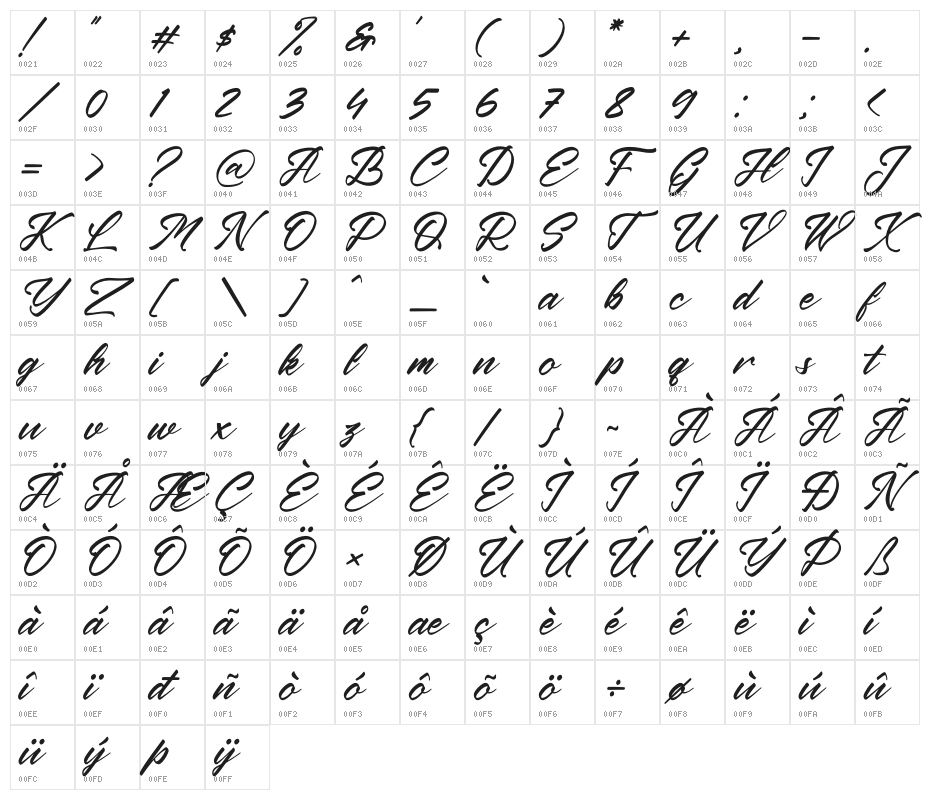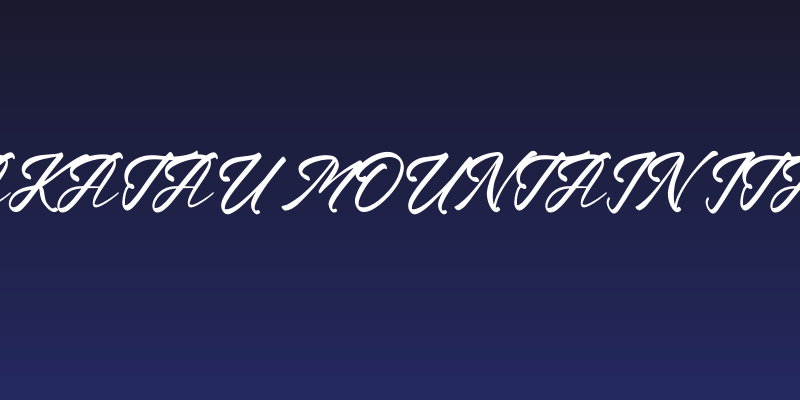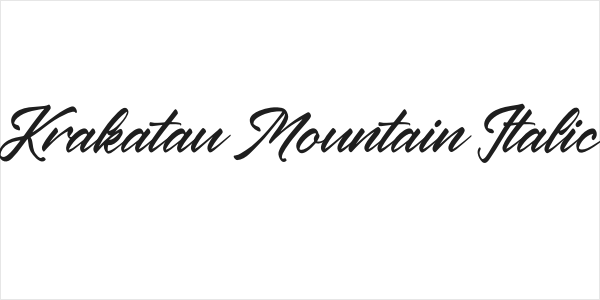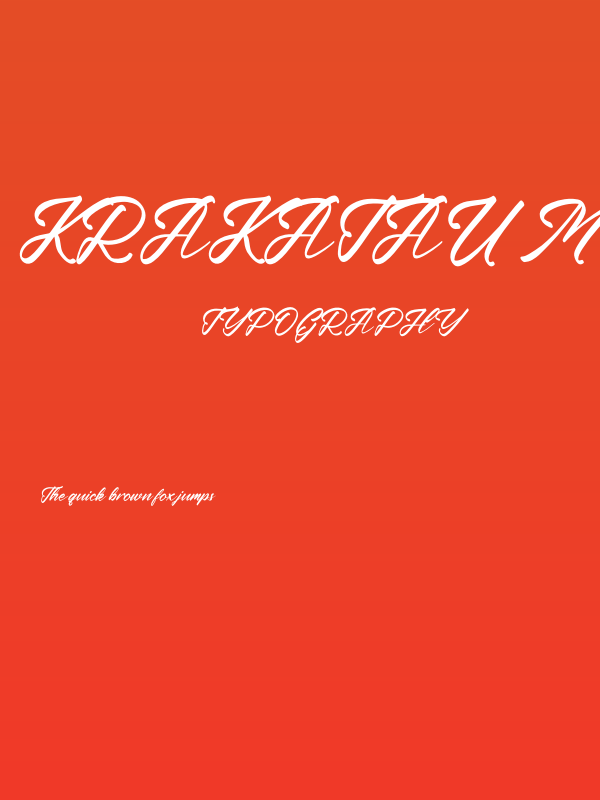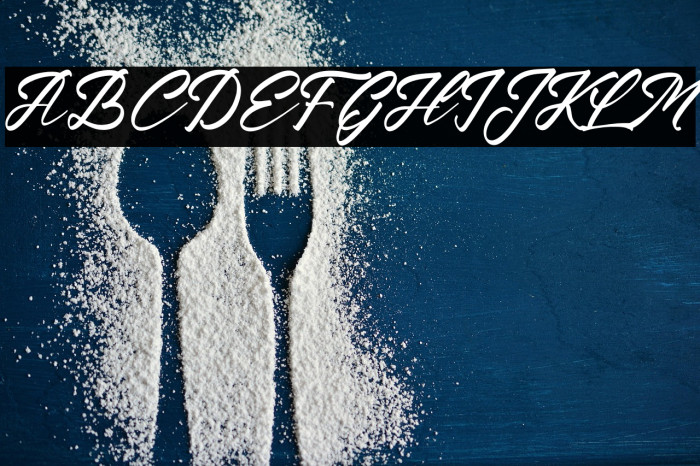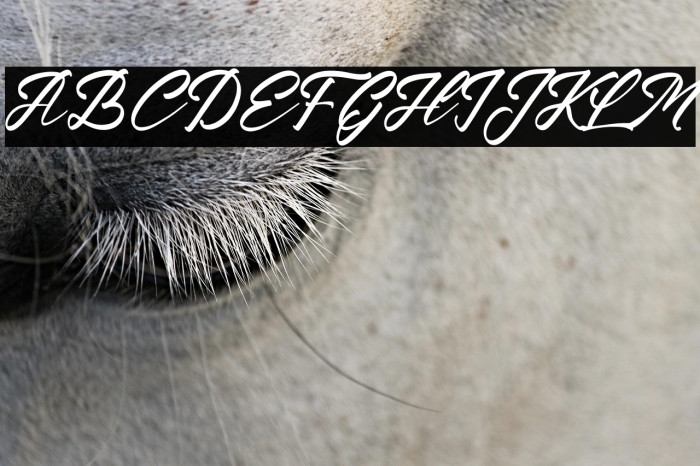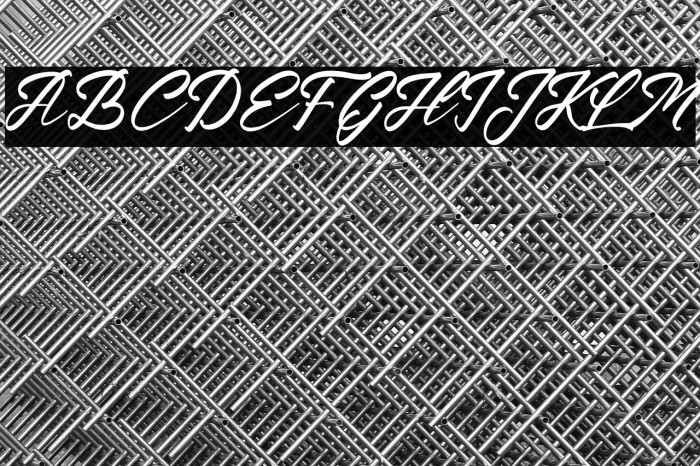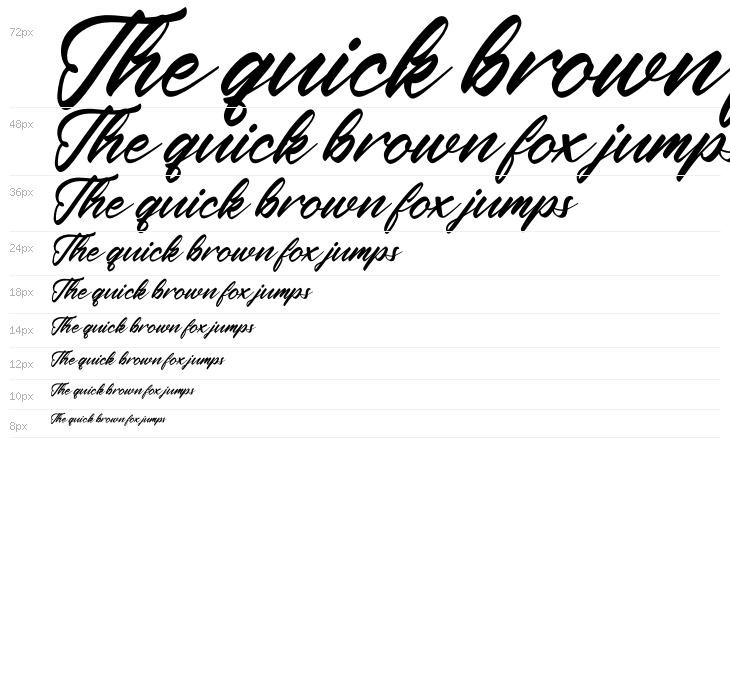
Krakatau Mountain Italic Font
Krakatau Mountain Italic Description
This font exhibits a dynamic and flowing script style, characterized by its elegant and cursive letterforms. The strokes are smooth and connected, giving it a handwritten appearance. The uppercase letters are slightly more ornate, with sweeping curves and flourishes, while the lowercase letters maintain a consistent flow. The numbers and special characters are designed to match the overall aesthetic, ensuring a cohesive look across all text. This font's italic nature adds a sense of movement and sophistication, making it suitable for projects that require a touch of elegance and personal flair.